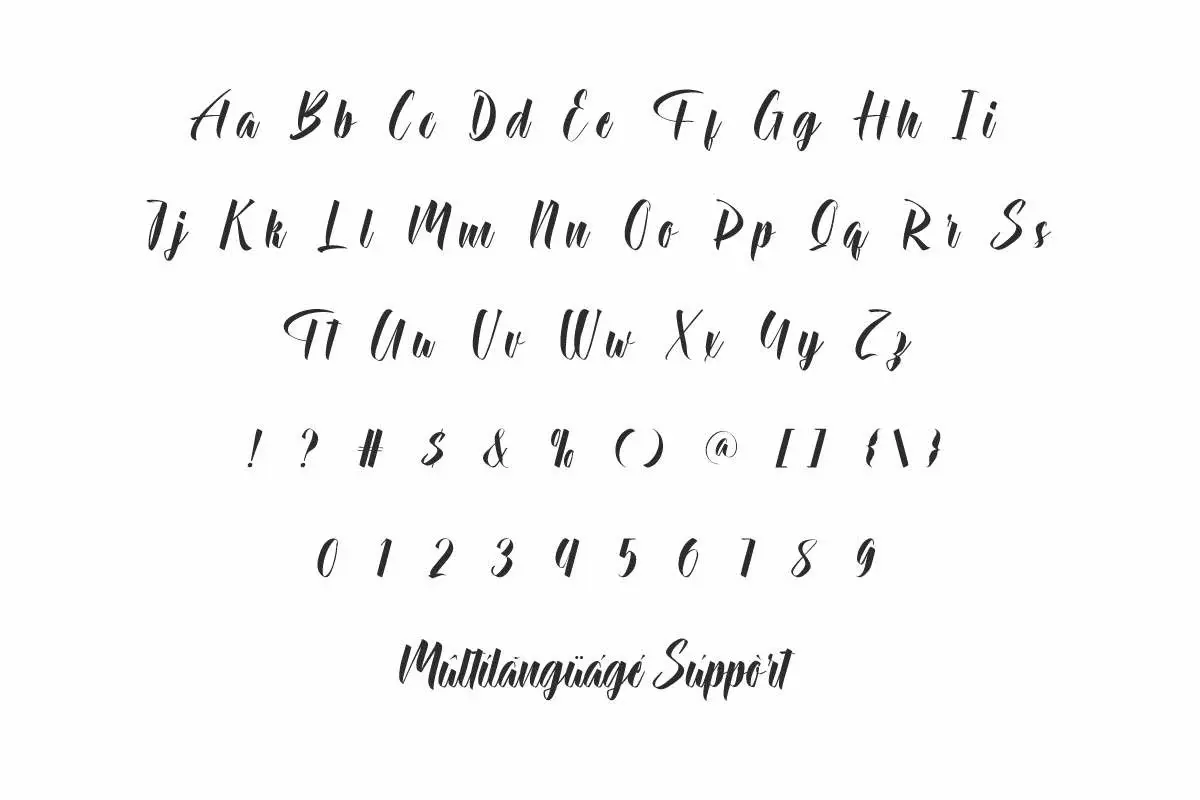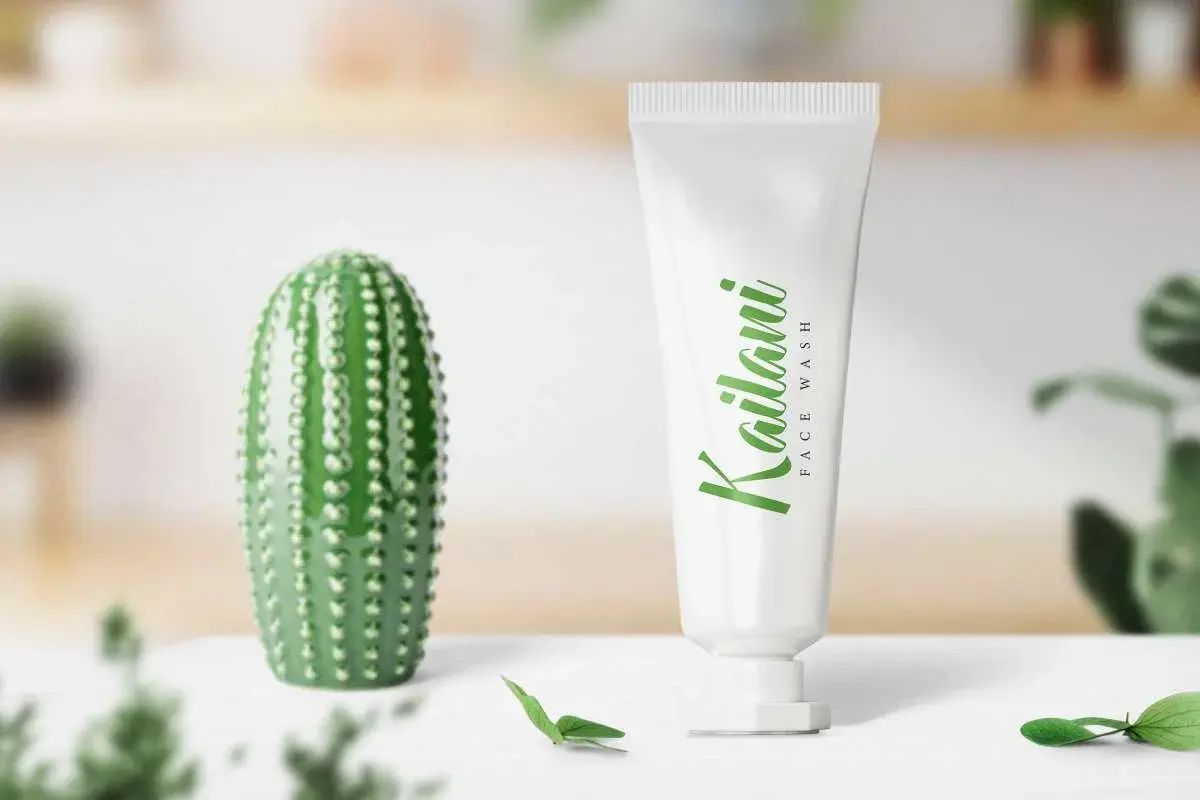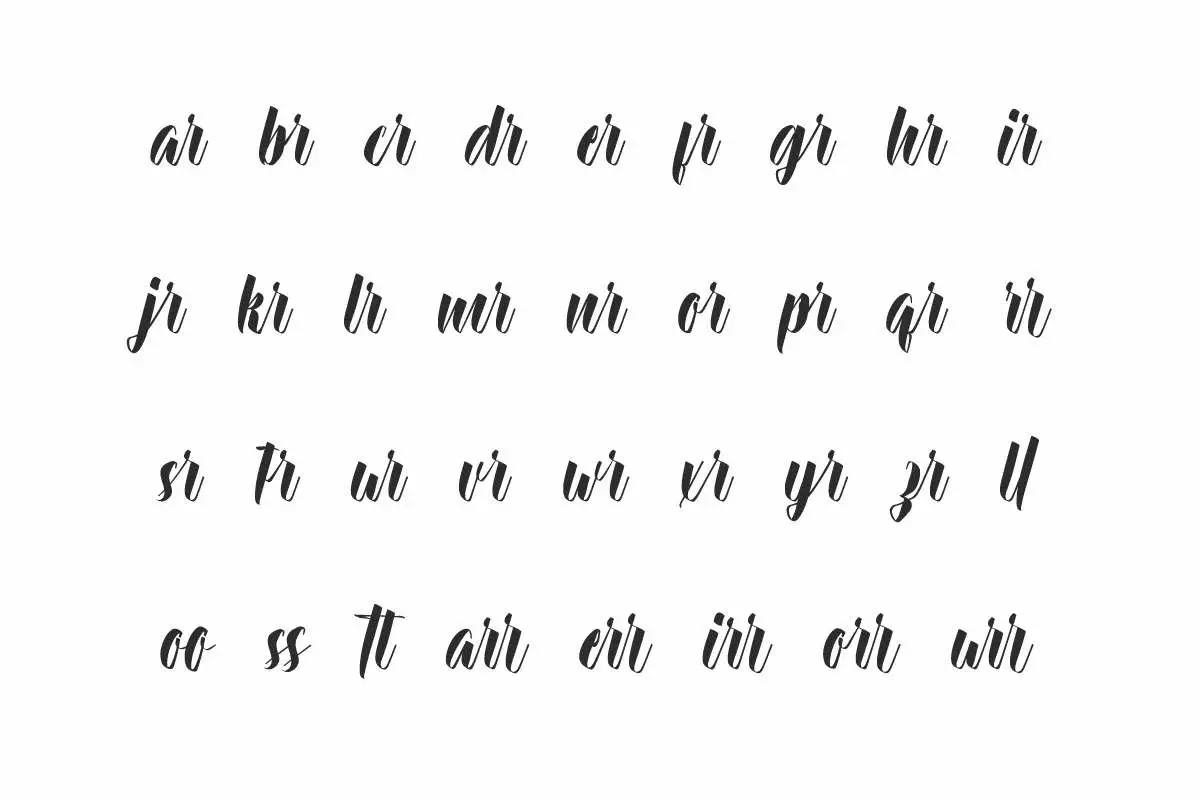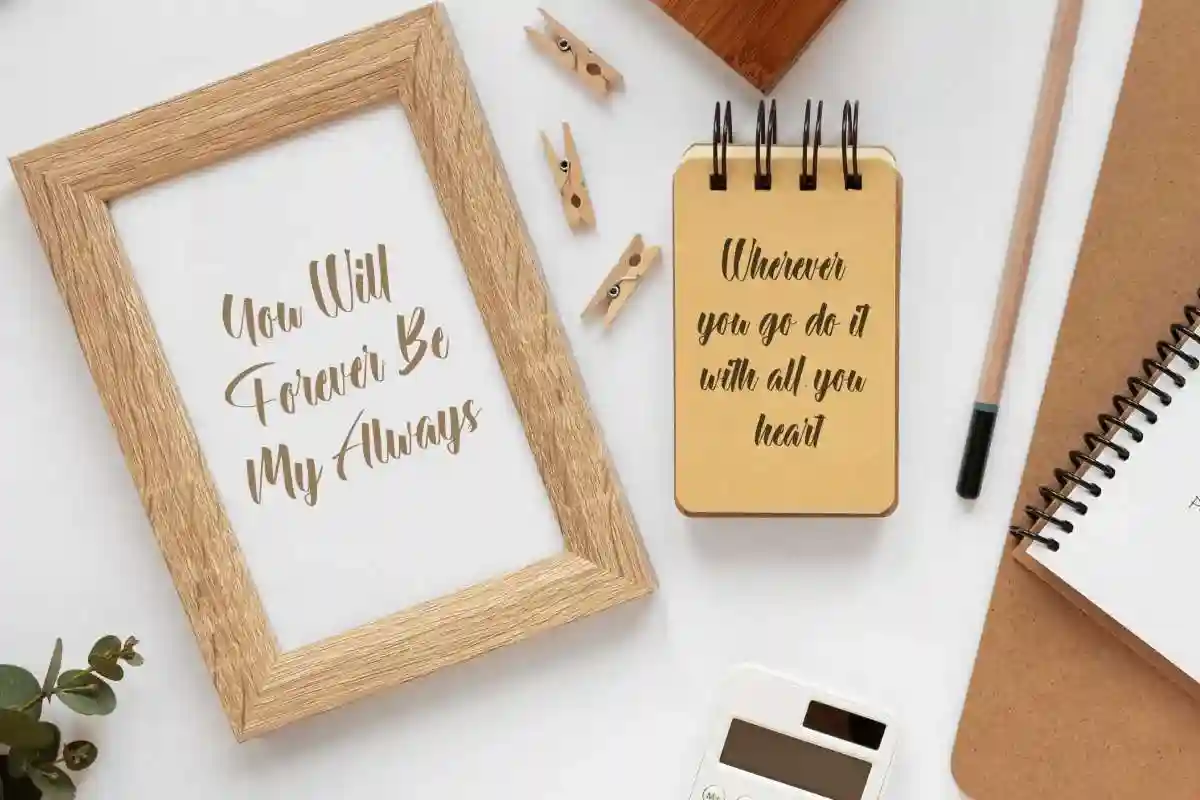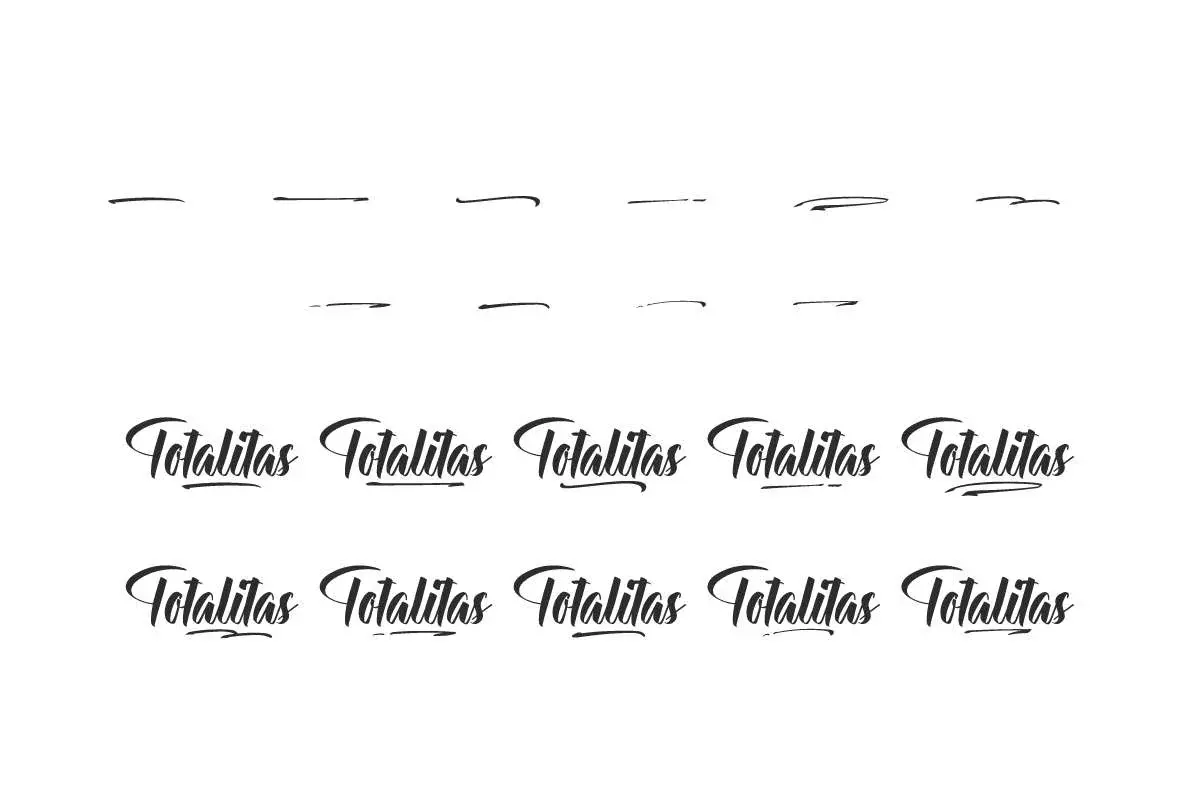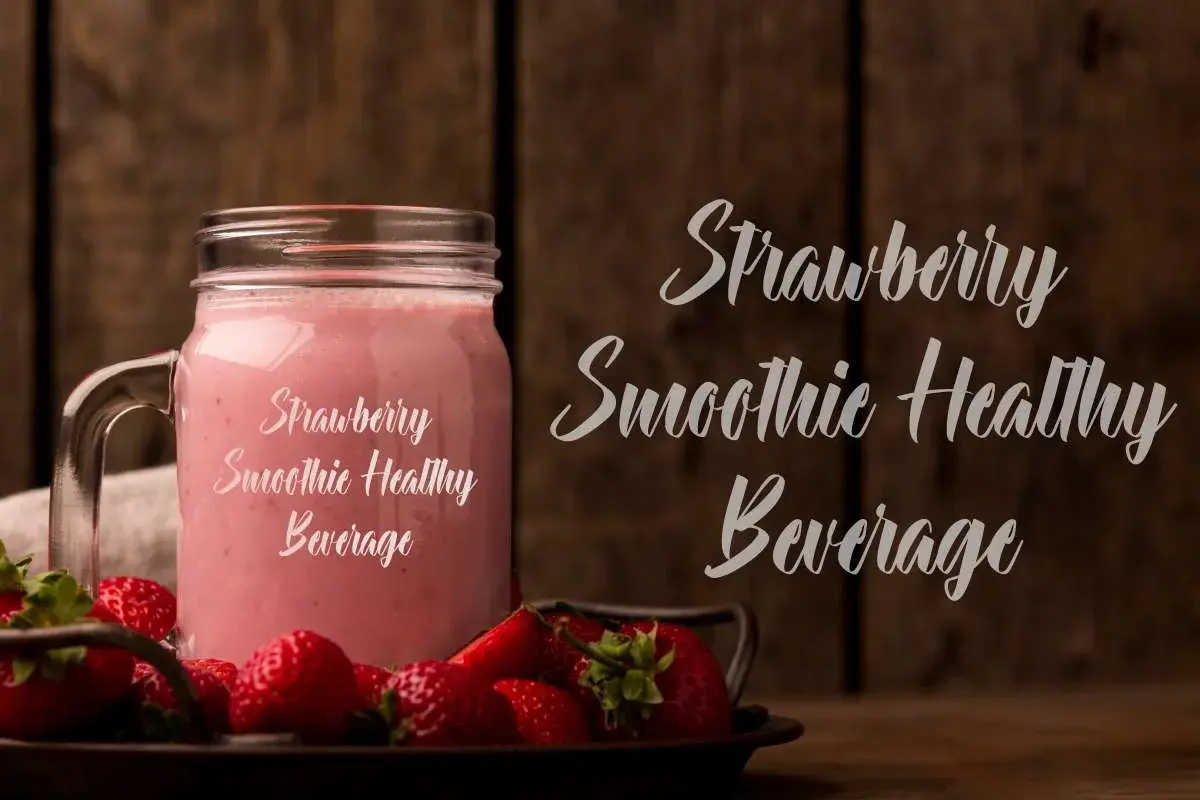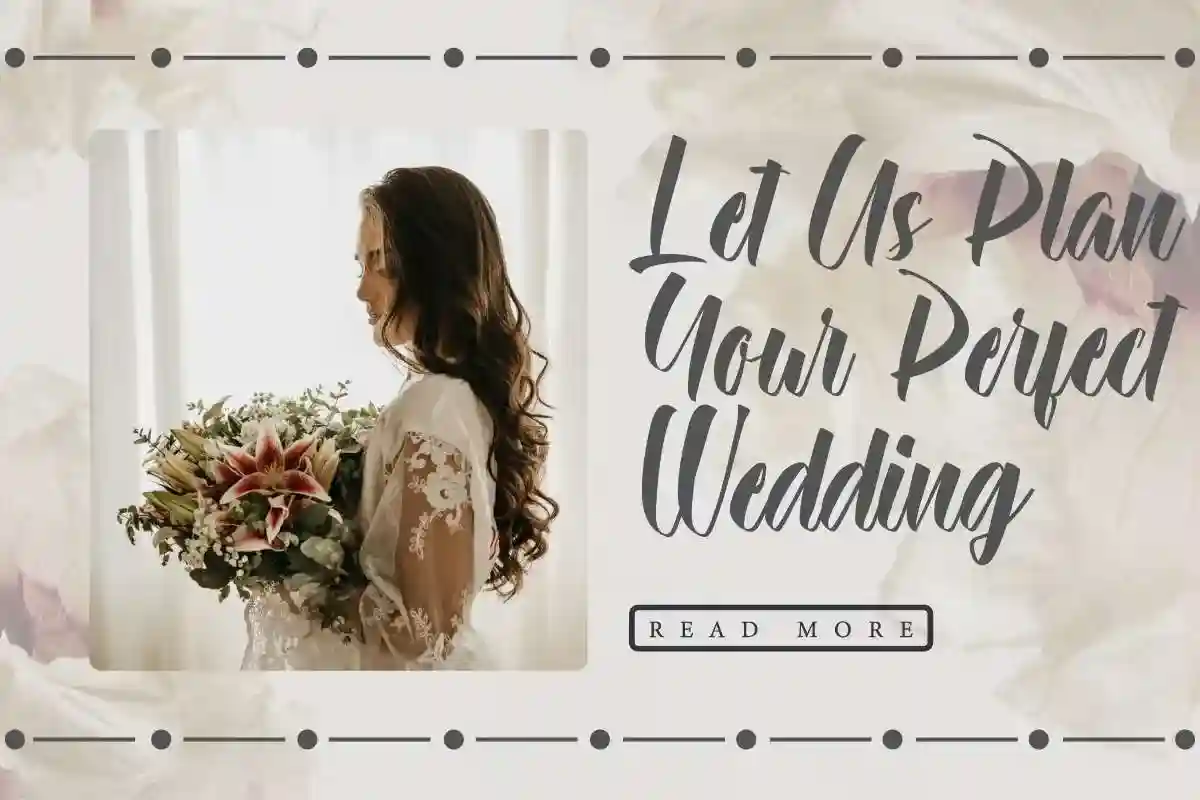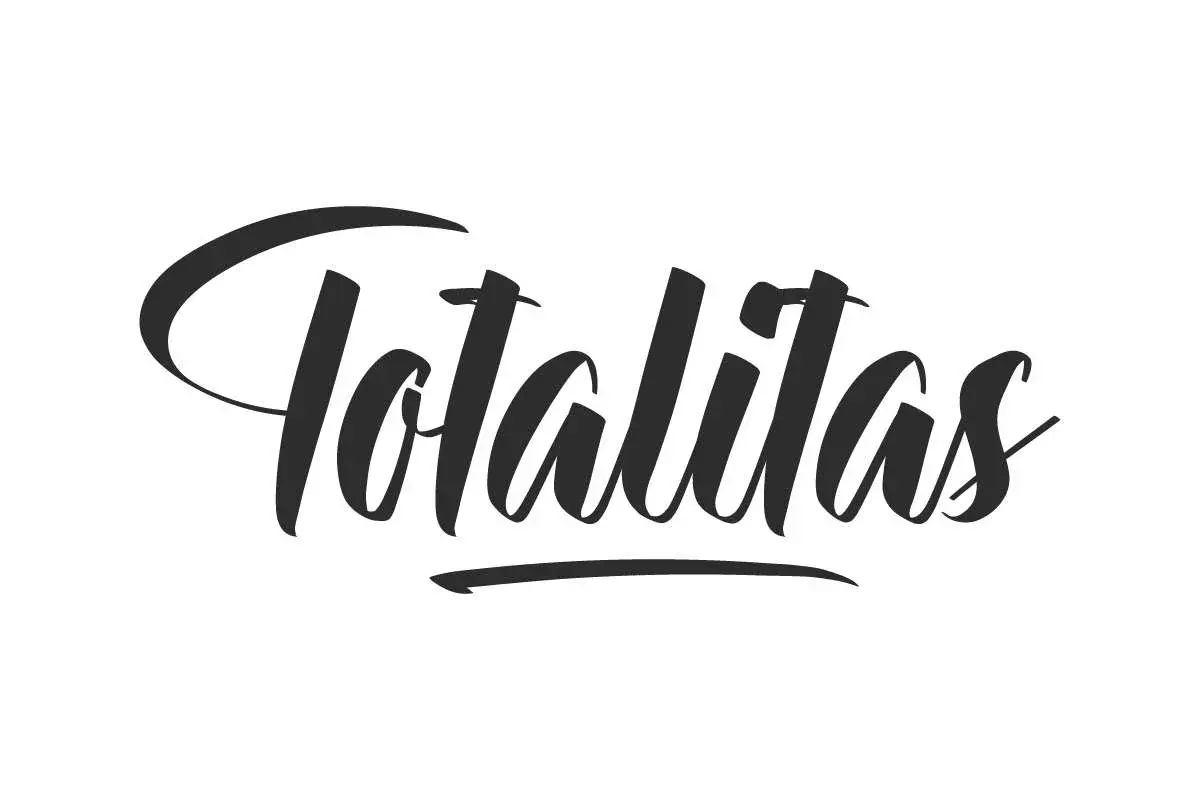
Totalitas Font is a classy script font that radiates beauty by NihStudio. This calligraphic font will be great for furniture, quote, skincare, watermark, wedding, etc
Totalitas Font is a bold script font with modern calligraphic style. It has a stylish and easy to read that will add to the beauty of your designs, such as brand logo, brochure, business card, cover, invitation, label, product packaging, quote, title, watermark, website, and much more!
Totalitas Font comes with a full set of Uppercase and Lowercase Basic Characters, Number, Punctuation, Symbol. This font also features a ligature character to make it perfectly bound and swoosh character that adds aesthetic value to fonts. Use this for your business industry such as, cosmetic, furniture, restaurant, skincare, printing, publishing, wedding, etc.